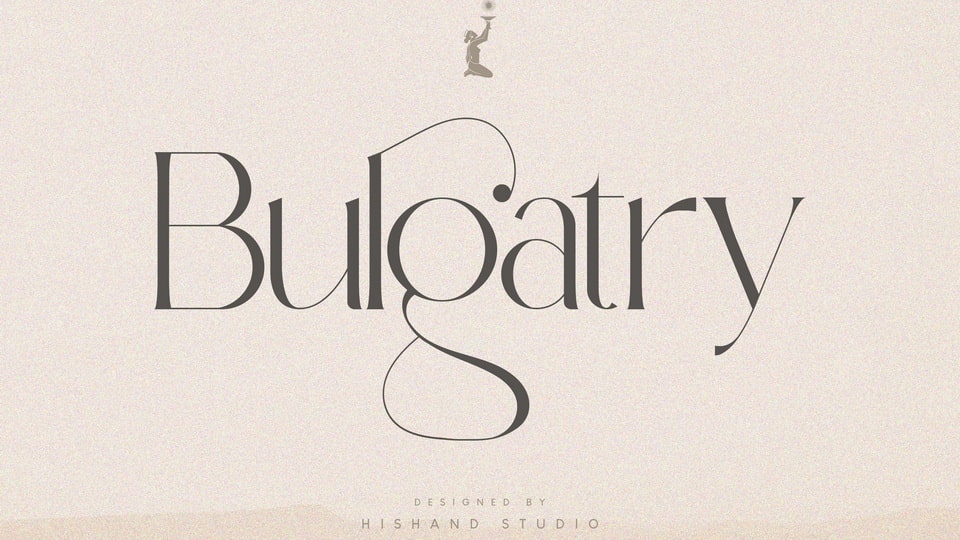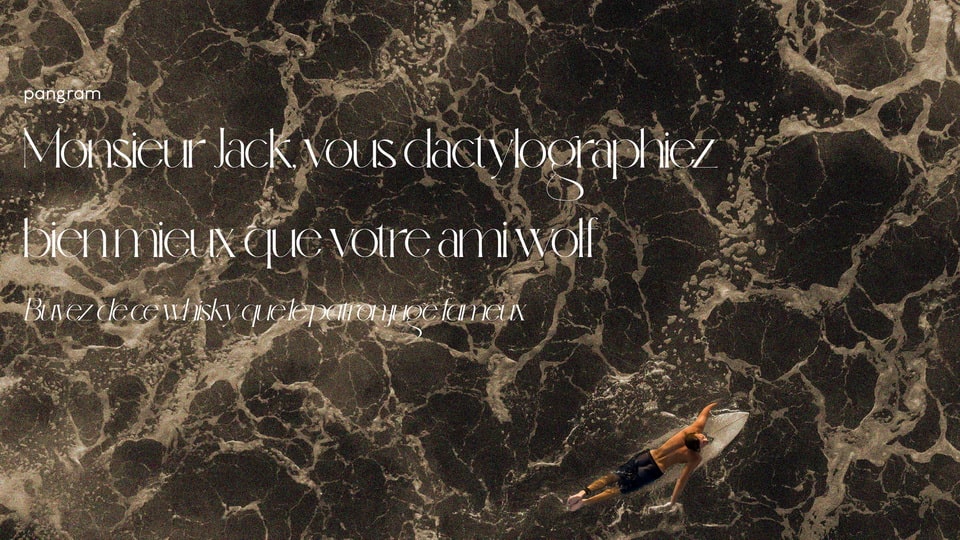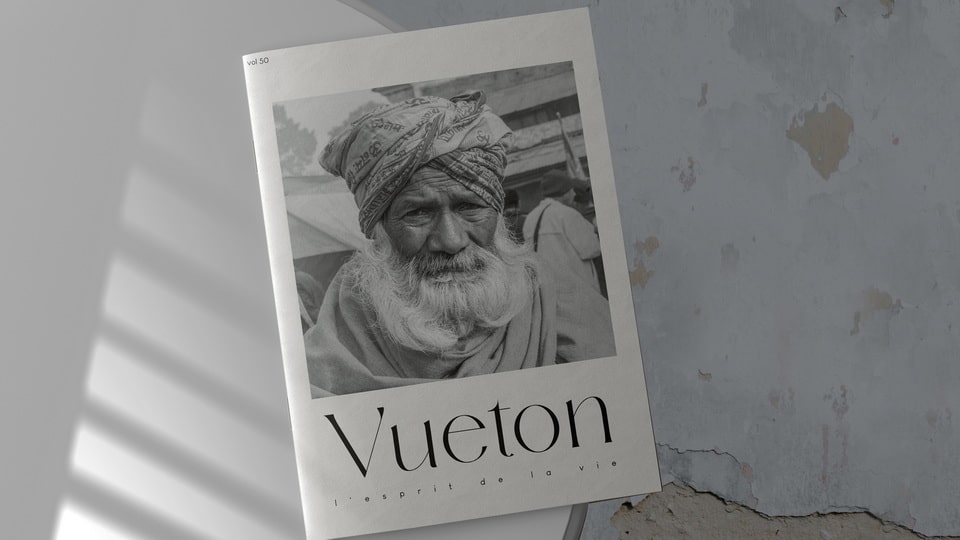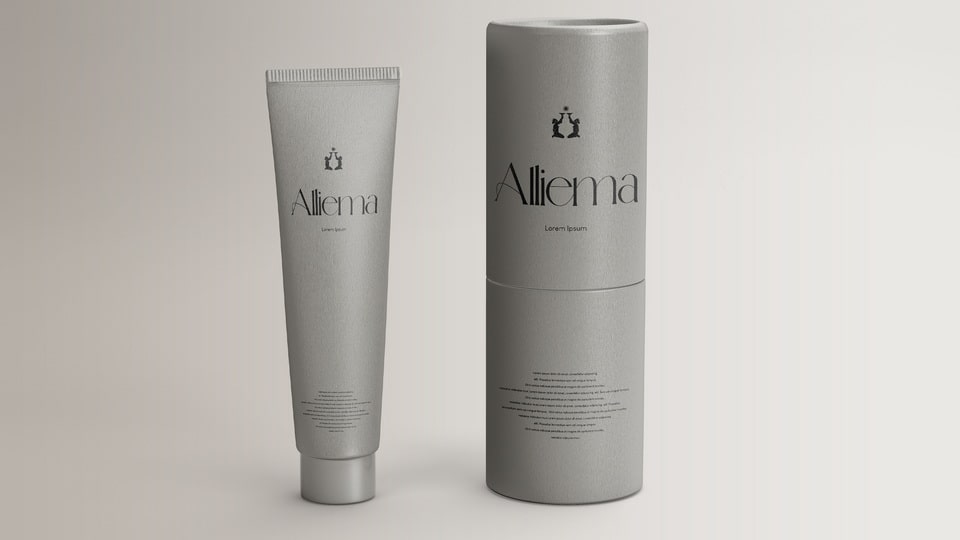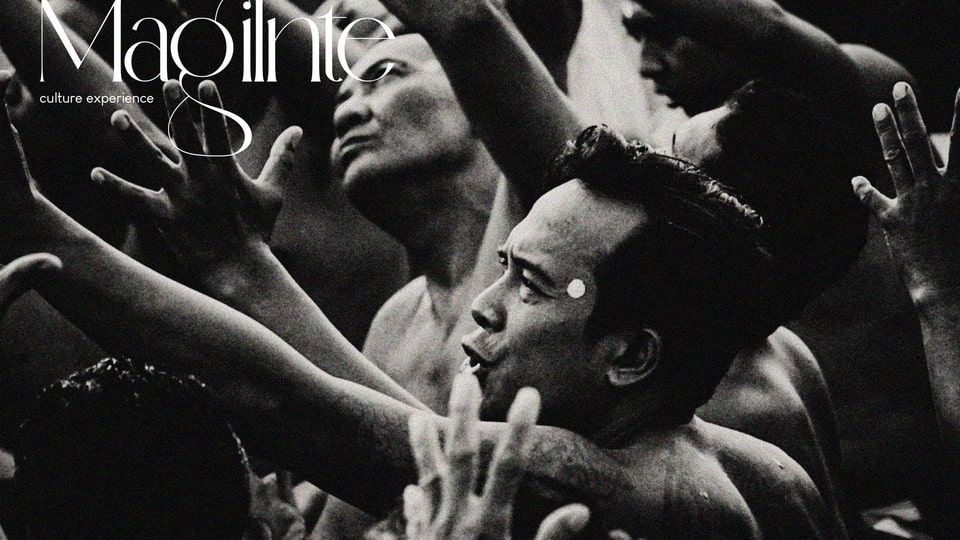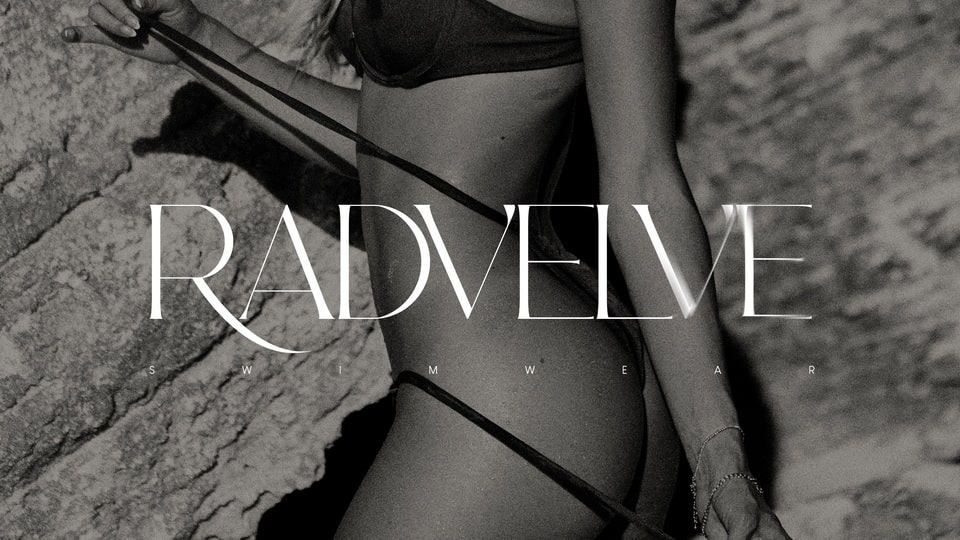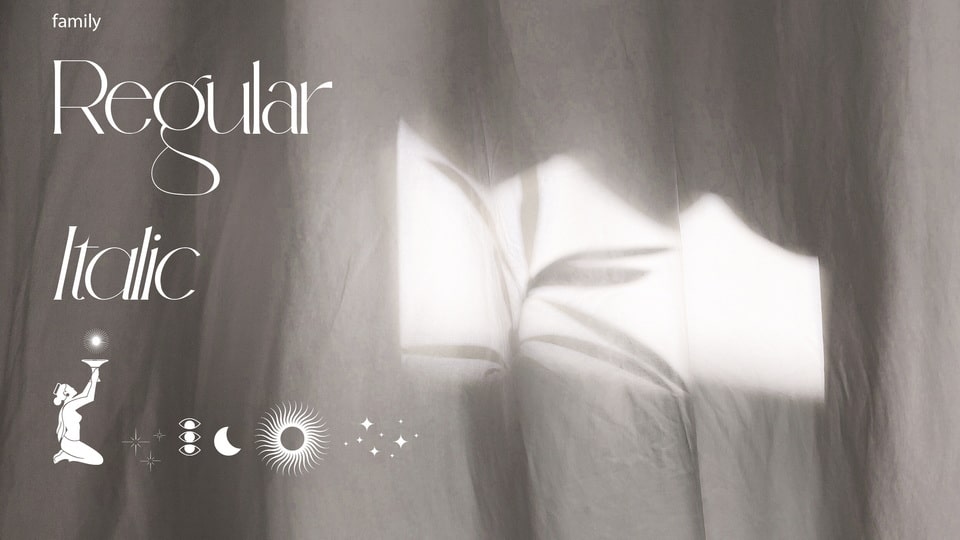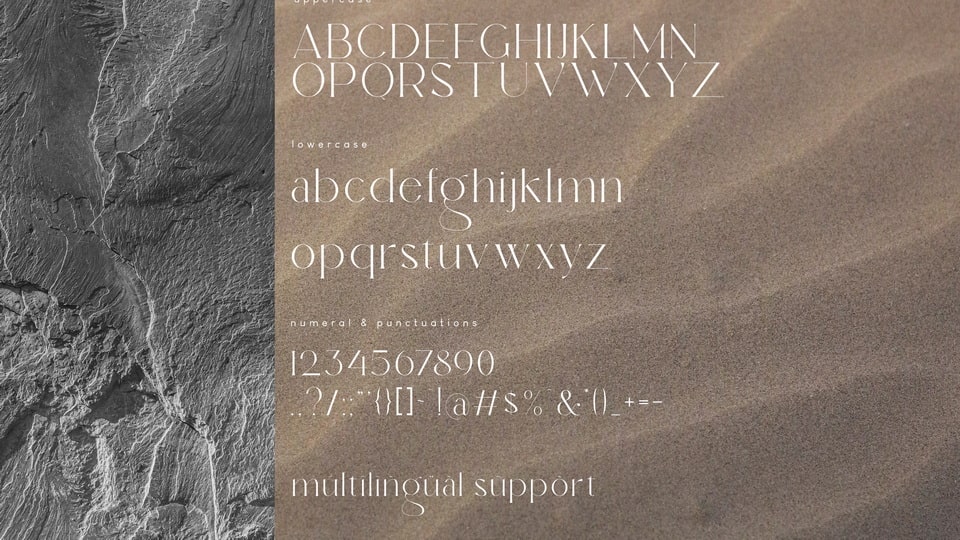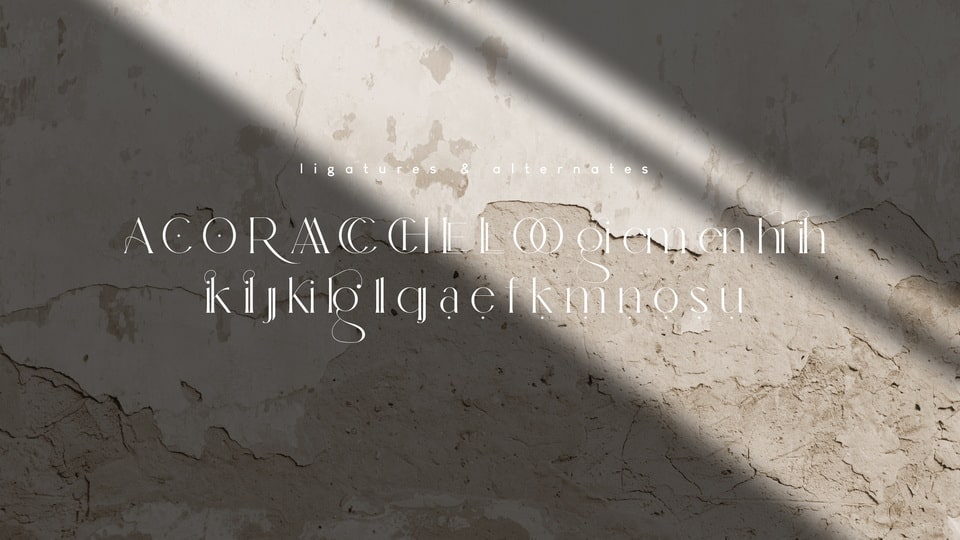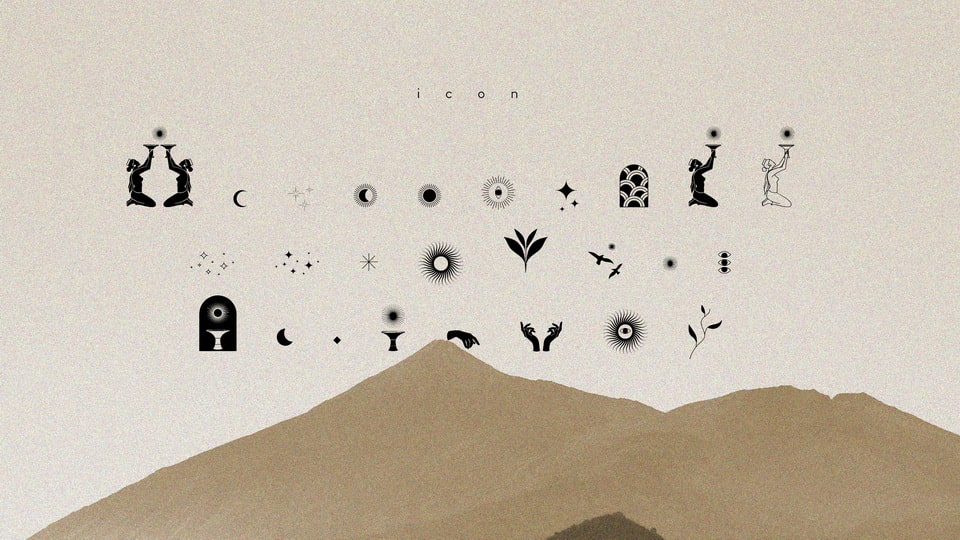
Bulgatry is a modern serif typeface that drawn with inspiration from the elegant of Bali, classy, modern but classic at the same time. Just have a look at this beautiful handcrafted serif typeface.
Bulgatry font is perfect logo, branding, invitations, stationery, wedding designs, social media posts, and much more.